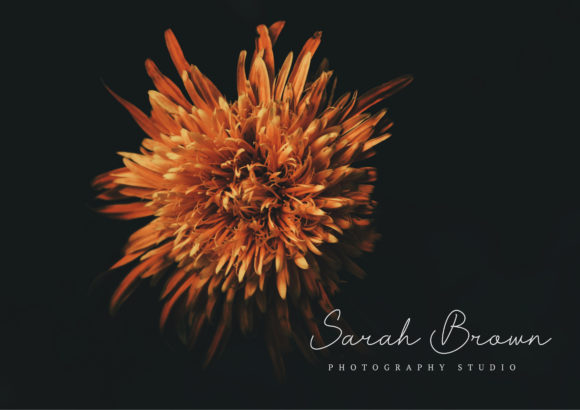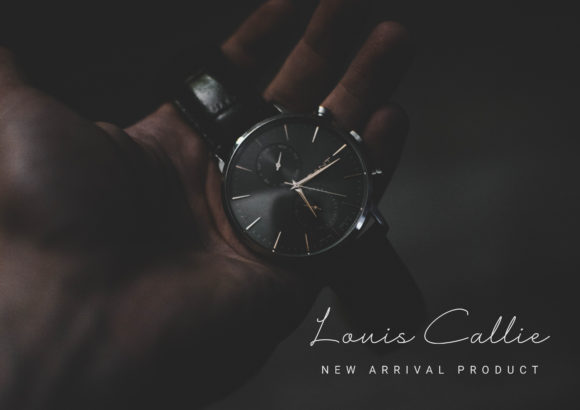
Harshita Font
Harshita Font is a free, unique, and cool font. This font is FREE to Download and suitable for designs such as t-shirts, sportswear, posters, logos, advertisements, clothing, and more.
Harshita Font is a free, unique, and cool font. This font is FREE to Download and suitable for designs such as t-shirts, sportswear, posters, logos, advertisements, clothing, and more. Whatever the topic, this font will be a great asset to your font collection, as it has the potential to enhance any creation.